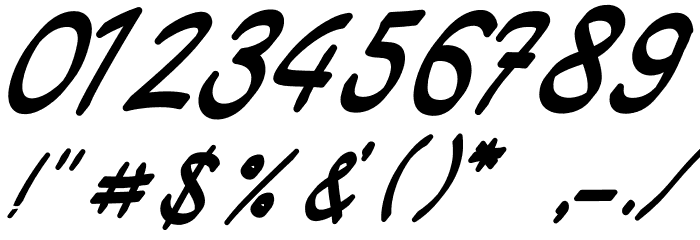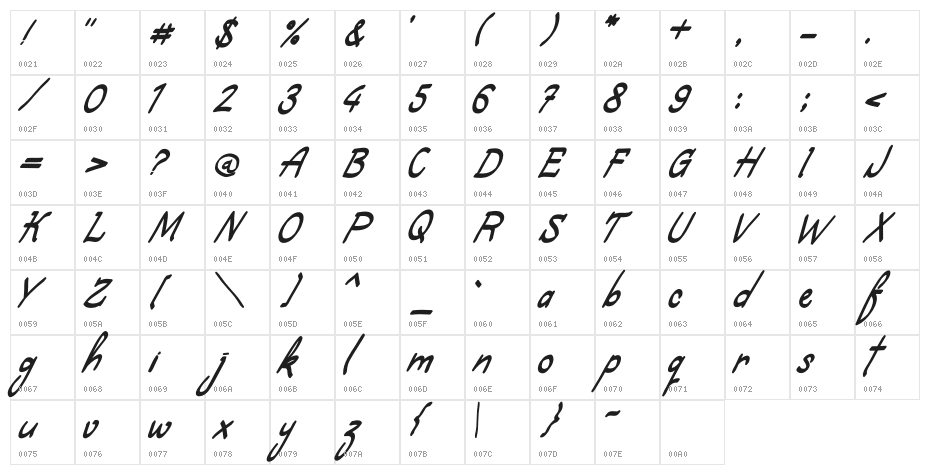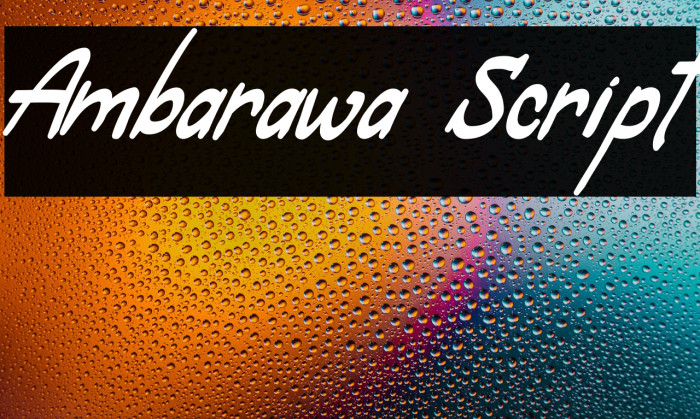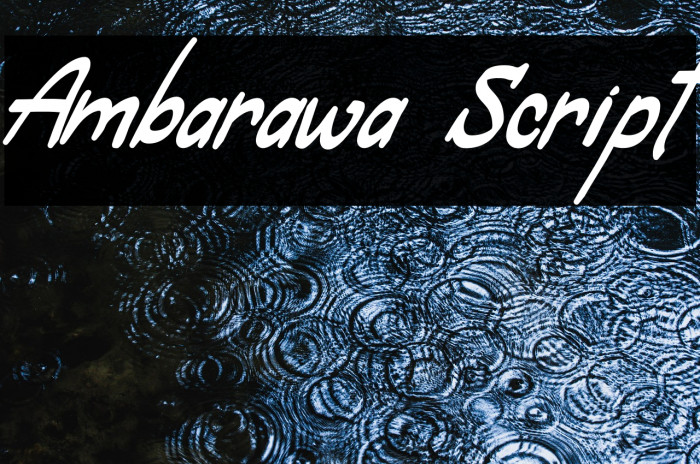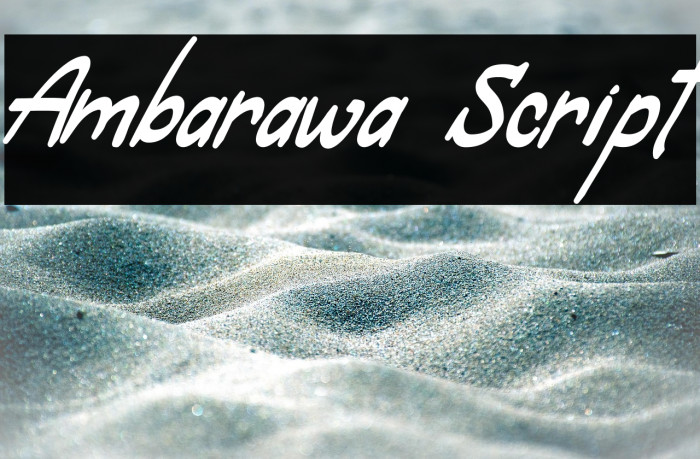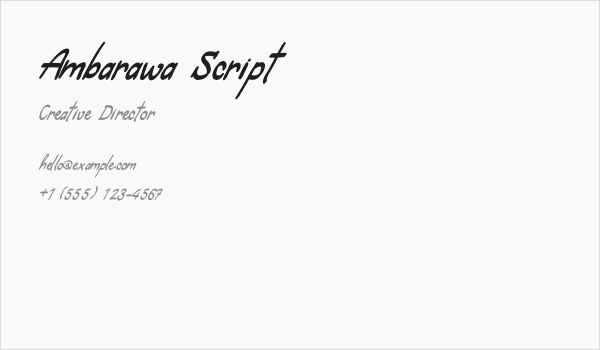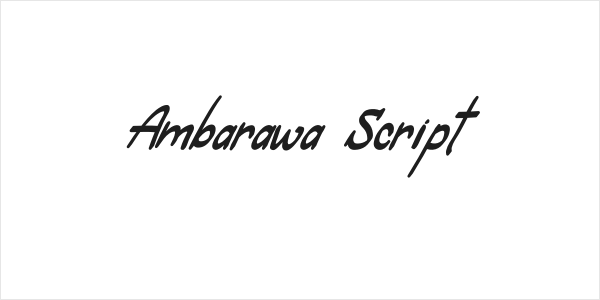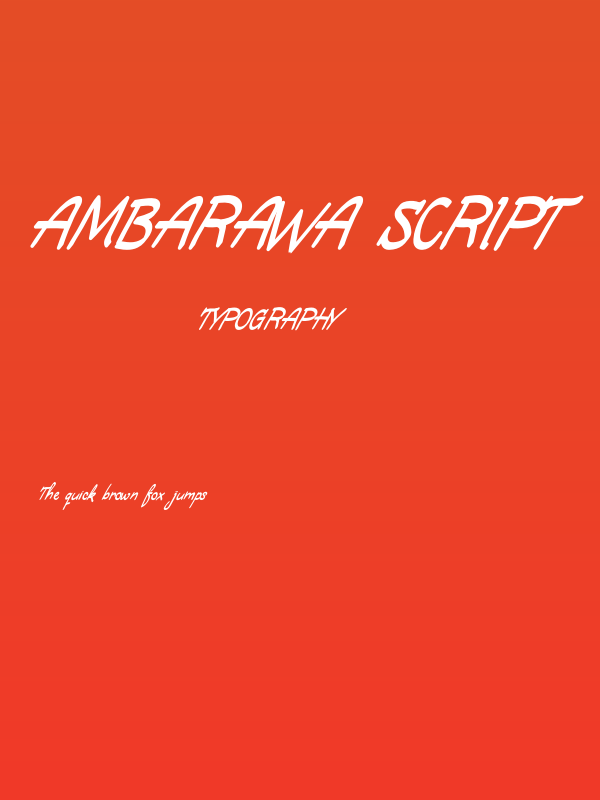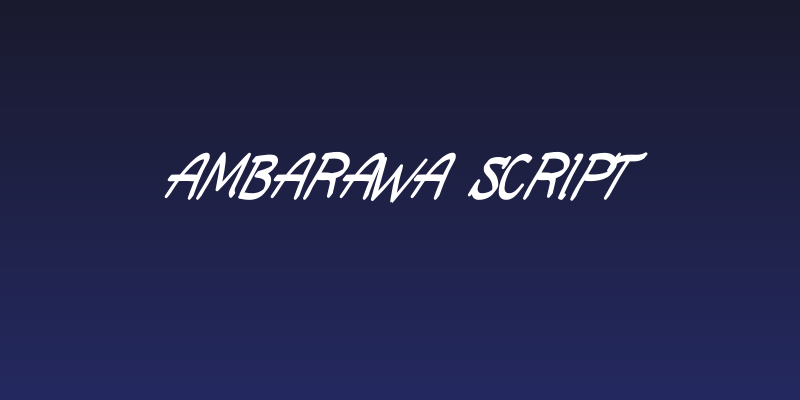
Ambarawa Script Font
Ambarawa Script Description
This script font exudes a dynamic and energetic style, characterized by its fluid, cursive strokes that mimic natural handwriting. The uppercase letters are bold and slightly slanted, giving a sense of motion and elegance. The lowercase letters maintain a consistent flow, with some characters featuring unique loops and swirls that add a touch of flair. Numbers and special characters are designed to complement the overall script style, maintaining the same flowing aesthetic. The font's design is both artistic and legible, making it suitable for creative projects that require a personal touch.